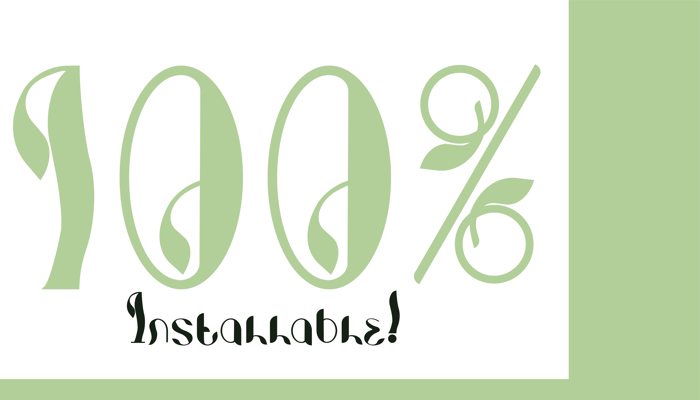
Photosynthesis Display Font
Display Style
Introducing "Photosynthesis" a display font that carefully crafted by using botanical elements touchs which very suit for your projects like product advertising, printing, branding character, book cover design and many more.